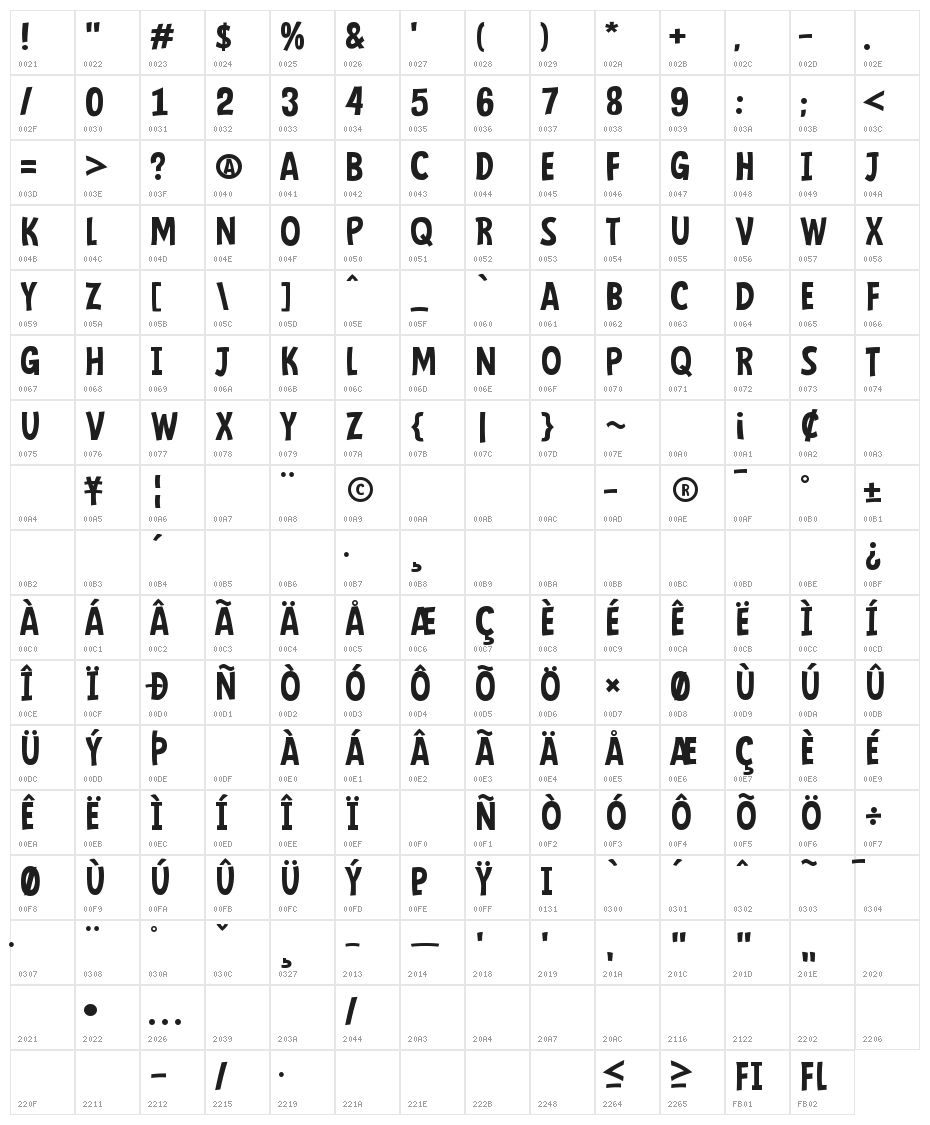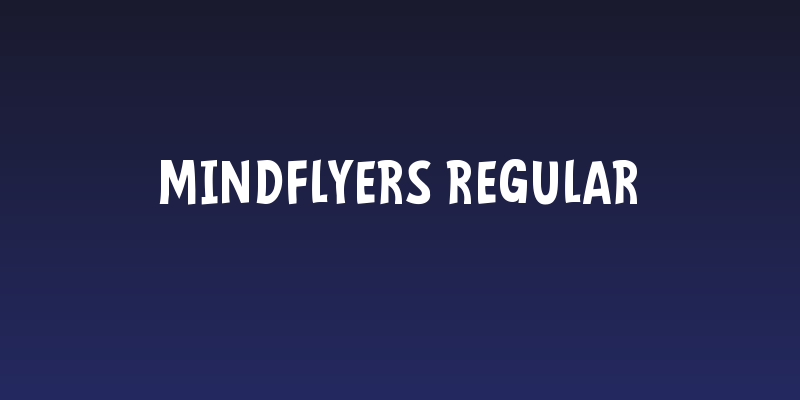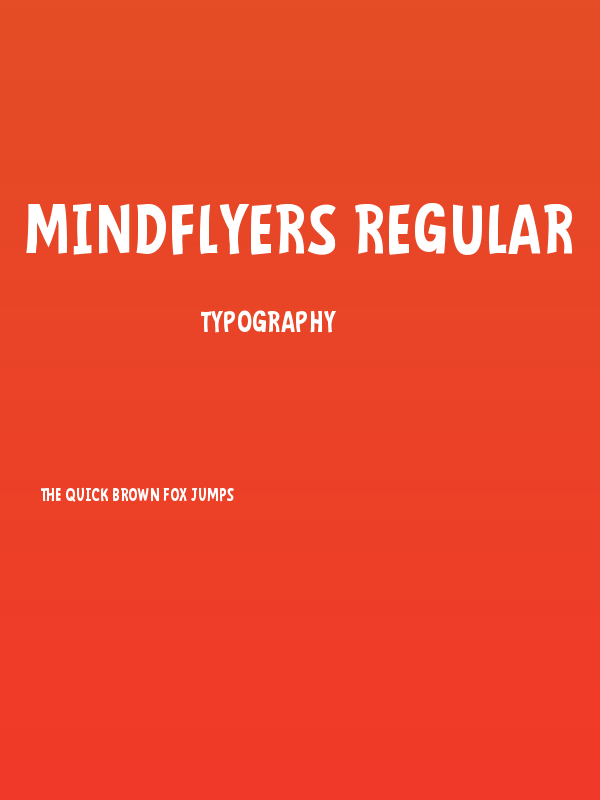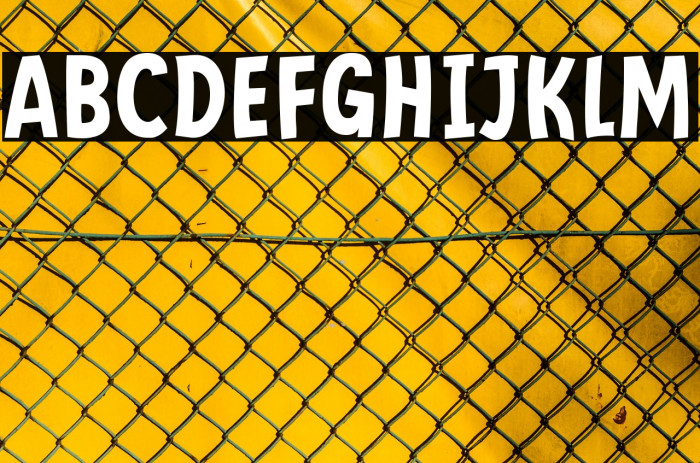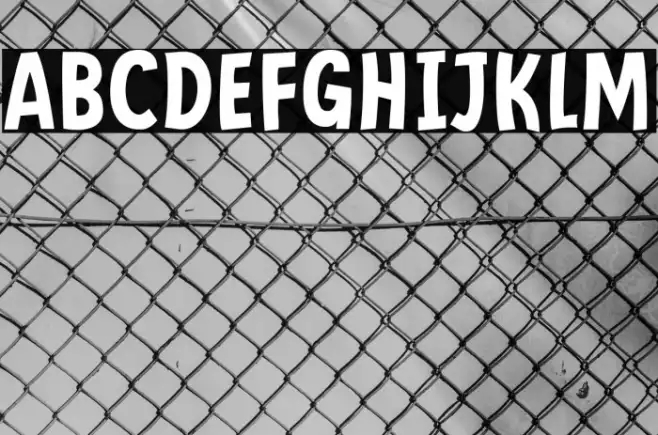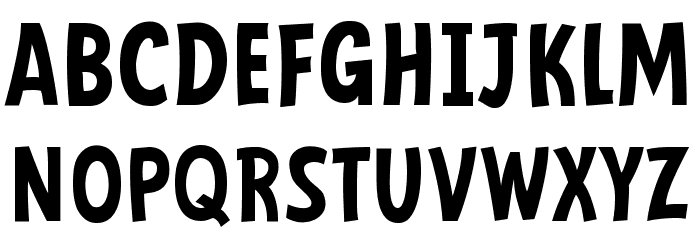
Mindflyers Regular Font
Mindflyers Regular Description
This font features a playful and bold design, characterized by its slightly irregular and dynamic letterforms. The strokes are thick and consistent, giving it a strong presence. The characters have a slight tilt, adding to the whimsical and energetic feel. The font maintains a uniform stroke width, which contributes to its bold appearance. The overall style is casual and fun, making it suitable for projects that require a lively and engaging typeface. The numerals and special characters are designed with the same playful aesthetic, ensuring consistency across all glyphs.
| Proposed Projects | Ideal for children's books, posters, party invitations, and playful branding. |